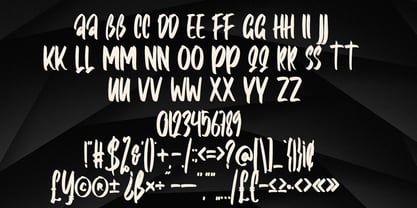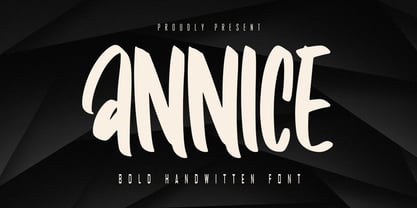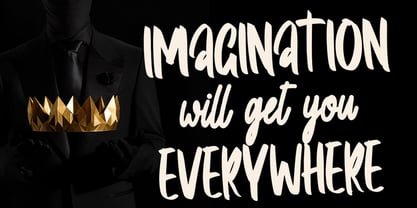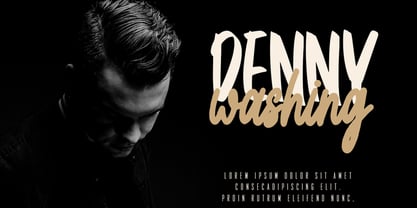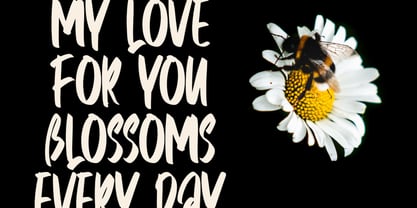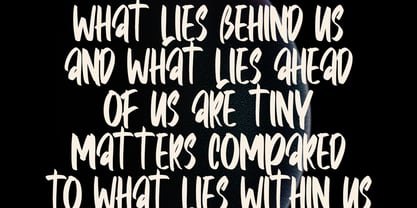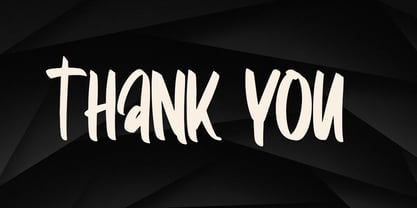
Annice
by Skiiller Studio
The Annice Font Family was designed by Irfan Mahmudin and published by Skiiller Studio. Annice contains 1 styles.
Annice is a bold handwritten font that seamlessly blends strong brush strokes with a vibrant, handcrafted personality. Featuring tall, expressive letters and dynamic curves, it offers a distinctive visual style perfect for designs requiring energy, attitude, and a contemporary handcrafted touch. This font is ideal for various applications, including branding, posters, logos, social media content, product packaging, merchandise, and striking headlines. Annice provides a confident, artistic, and memorable aesthetic that enhances any creative project, making it a versatile choice for designers seeking to make a lasting impression.
Designers: Irfan Mahmudin
Publisher: Skiiller Studio
Foundry: Skiiller Studio